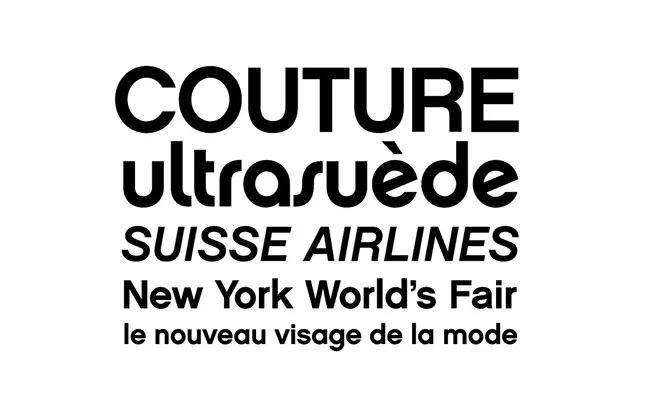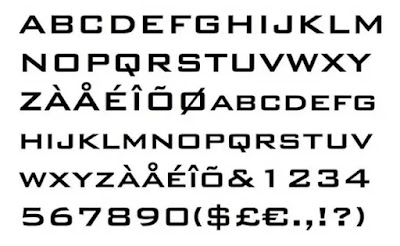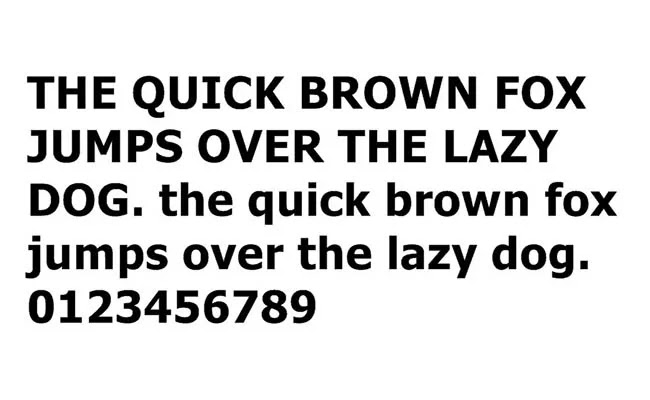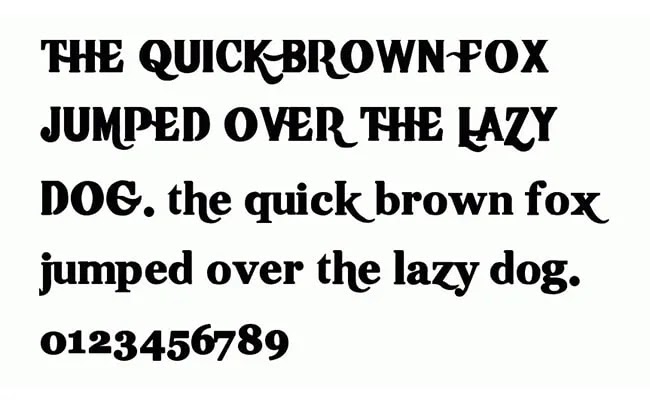
Top 10 Logo Fonts Families
The Logo Fonts are basically we seen into the title of famous movies, brand logos, and websites. These basically represent the company motive. Some well-reputed companies like Burger King, Pizza Hut, Tinder, have featured the logos which are looking forward to many designers. That's why we here bestowing you to some awesome logos. Those definitely helped you to create some designs.
Tinder Logo Font Family
Presenting the Tinder Logo Font! Tinder is fundamentally an area based social inquiry versatile in addition to web application generally utilized for dating administrations.
That is mean its a worldwide utilizing application. Subsequently, by far most of worldwide planners are keen on its logo. Since it's logo including an incredible text style.
Pizza Hut Font
Pizza Hut Font by Mr Dennis Ludlow is the typeface being utilizing in the logo of Pizza Hut brandings. This is choice presentation typography accessible in a solitary ordinary style.
Jaguar Font Family
Juguar Font been utilizing in the most recent logo of British extravagance and sports vehicle organization Jaguar is named Jaguar JC Book Bold typeface Firstly hand crafted and discharged by Font smith type foundry.
The entire text style family is accessible in three one of a kind styles brought as Jaguar JC Book, Jaguar JC Book Italic, and Jaguar JC Book Bold. Each weight accompanies its own incomparable appearance.
All the letters contain solid thick/slender stroke diverge from better textual style blending insight. Perfect for features, title showing or even unnecessary content introduction prepared for Windows, Linux and Mac OS.
The present logo for panther 2019 presents a jumping over Jaguar that depicts speed, power, and the quickness of the vehicles. furthermore, brand typography underneath this. Png logo document for the present logo is additionally included the download record.
Imgur Logo Font Family
The textual style utilized for the logo of Imgur is essentially a sans serif textual style name as VAG Rounded Black Font. It has made by Mr. Volkswagen and discharged by Linotype text style foundry.
Different creators from all around the globe are interested to think about its logo typeface. In the event that you additionally one of them, at that point you are on the correct stage. Since here we will offering you its name and highlights.
Mercedes Benz Logo Font Family
Mercedes Benz Logo Font is a well known typeface. Everybody thought about its adaptable appearance and sharp surface. Numerous creators are looking for this textual style family routinely according to its high-review comprehensibility and cool impressions.
The textual style utilizing in Mercedes Benz Logo is Corporate A BQ Light Font. Kurt Weidemann took the charge for structuring and discharging it just because. It accompanies exquisite serif glyphs and exceptional imprints. This literary piece looks extraordinary under the circle encasing a three-pointed star.
SpaceX Logo Font Family
The textual style has been utilizing for the logo of SpaceX is a hand craft textual style. Be that as it may, the most comparative typeface to this logo is Bank Gothic Font. By Morris Fuller Benton from American Type Founders.
Needs a couple of changes in the event that you like to make it look equivalent to the SpaceX logo. Simply give a little hole in the upper segment of the letter "E" and "A"
Here you can review the textual style lettering pictures for this exquisite textual style. Some sharp creator do these sorts of steps to give a logo a fine one of a kind appearance.
The originator for SpaceX logo has done as same. In the pictures, we attach in here you will grandstand you a thought of how this text style family really resemble.